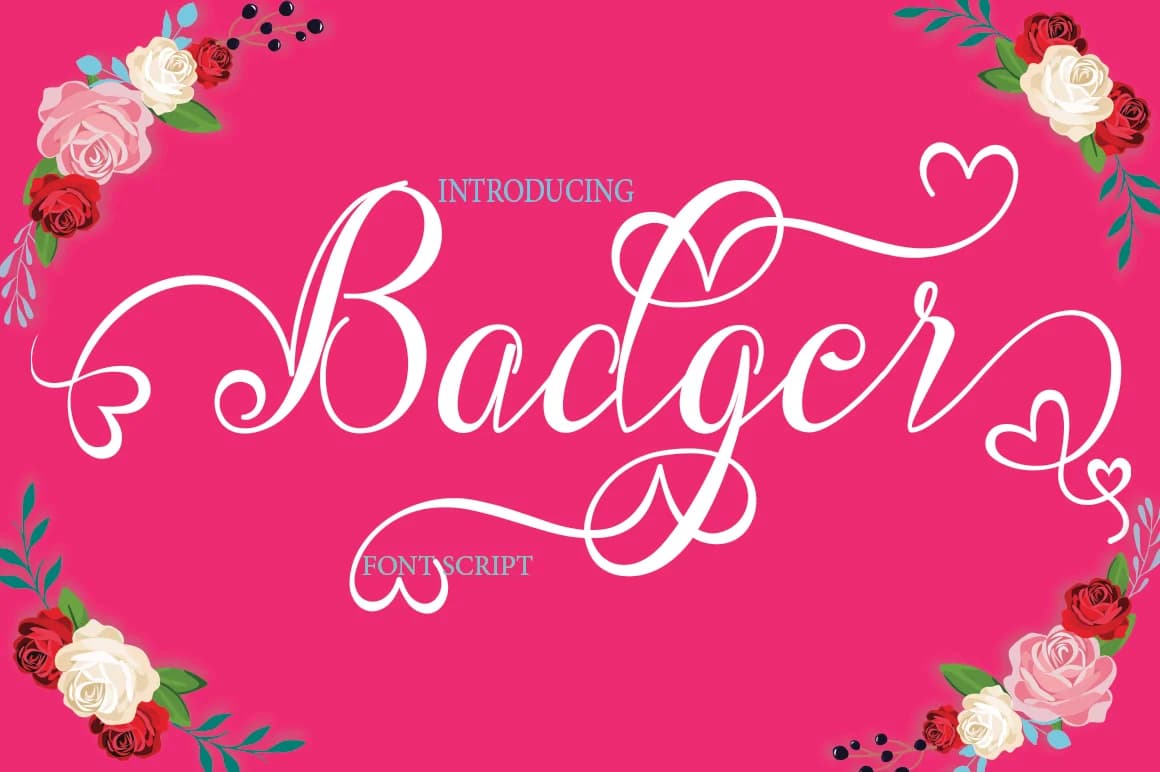
Badger by naldystudio is a contemporary handwritten script that skillfully combines modern sensibility with organic, flowing letterforms. The font brings genuine warmth and personality to your designs, complemented by extensive bonus glyphs and stylistic alternates that give you flexibility to customize and personalize each project. This versatile script font excels across diverse creative applications, from wedding invitation suites and greeting card designs to Etsy product labels and boutique skincare packaging where eye-catching lettering strengthens brand identity. DIY craft sign makers particularly appreciate how Badger's natural stroke weight and consistent proportions maintain legibility while preserving that authentic hand-lettered charm. The font works beautifully for event branding, stationery projects, social media graphics, and anywhere you need genuine handwritten character without sacrificing clarity and readability. The generous character set lets you vary letterforms within a single design, creating naturally layered compositions that feel hand-crafted and deliberate rather than computer-generated. Whether applied to display or body text applications, Badger adapts gracefully across different sizes and design contexts, maintaining its distinctive personality throughout. Get Badger from Creative Fabrica and bring authentic character to your next creative project.
- Elegant, Flowing, Badger
Badger Font is a script font that shines as a display or heading face. Pair it with a clean sans-serif or serif font for body text — the contrast creates a clear hierarchy while the two styles stay balanced and easy to read.
Badger Font